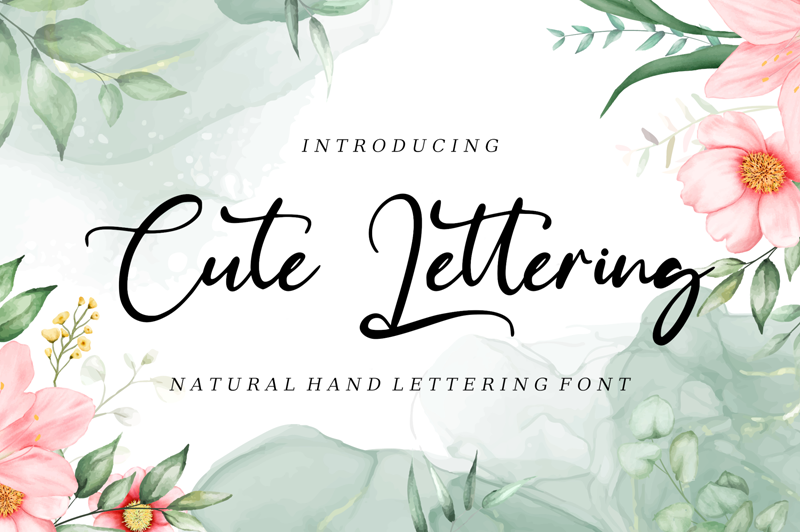
Preview and download Cute Lettering Font. Created by Anggara Anindita Glaasebw in Script Calligraphy styles with Demo license.
READ FIRST BEFORE DOWNLOADING AND INSTALLING FONT Cute Lettering !!! This is the Premium Demo font that I shared for the Personal use License. if you want to use Fonts for commercial purposes please buy at: https://www.creativefabrica.com/product/cute-lettering-2/ref/237972/ Cute Lettering is a beautiful, modern script font make this font looks natural, elegant, and perfect for any awesome projects. https://www.creativefabrica.com/product/cute-lettering-2/ref/237972/ or you can see my premium font collection at: https://www.creativefabrica.com/designer/fonttype/ref/237972/ REMEMBER THIS IS A FONT PERSONAL USE LICENSE (DEMO) This font is protected by copyright, and if caught using this font for any commercial purposes, you will be subject to a fine of 3000 USD, without being able to bargain anymore, and every day our TEAM roams the Maya to ensure this FONT is not Used for Commercial IF YOU DO NOT BUY IT at the link mentioned above. thank you for reading, please appreciate our hard work to make FONT. |